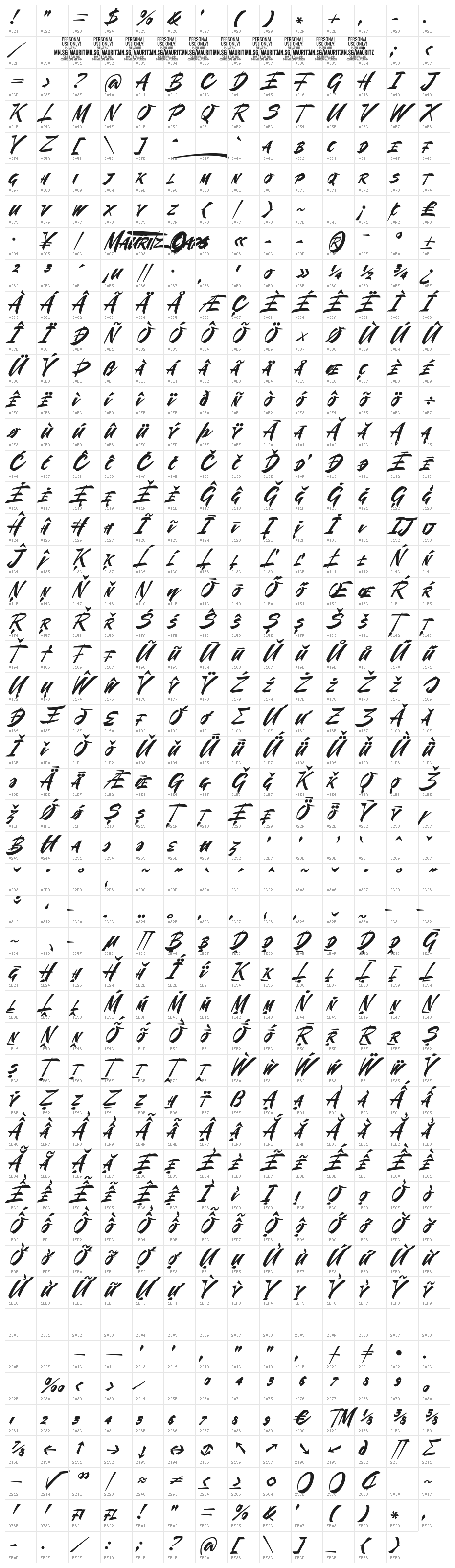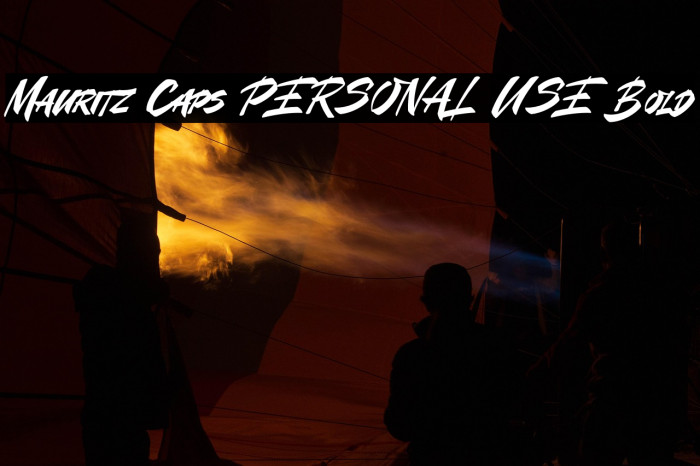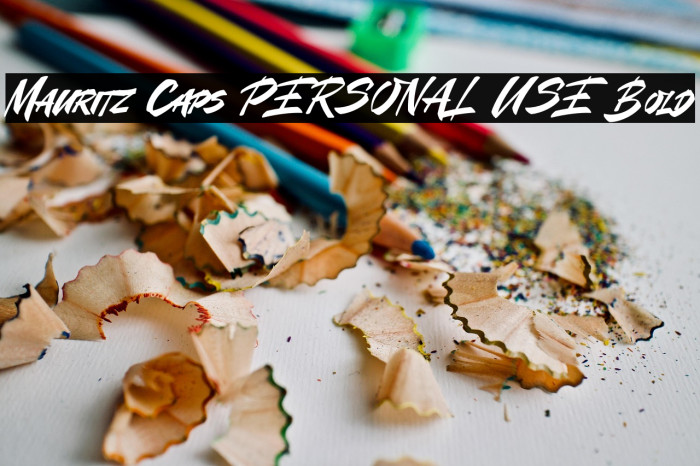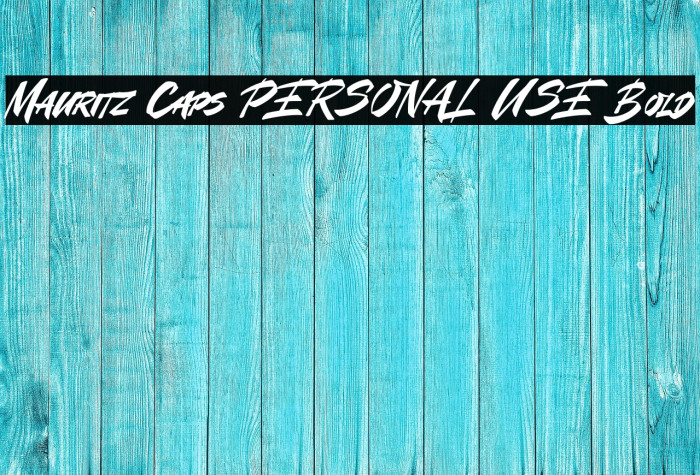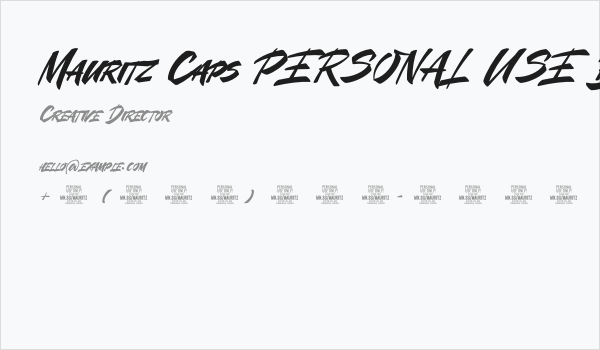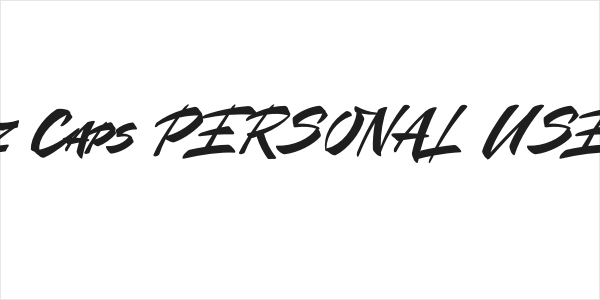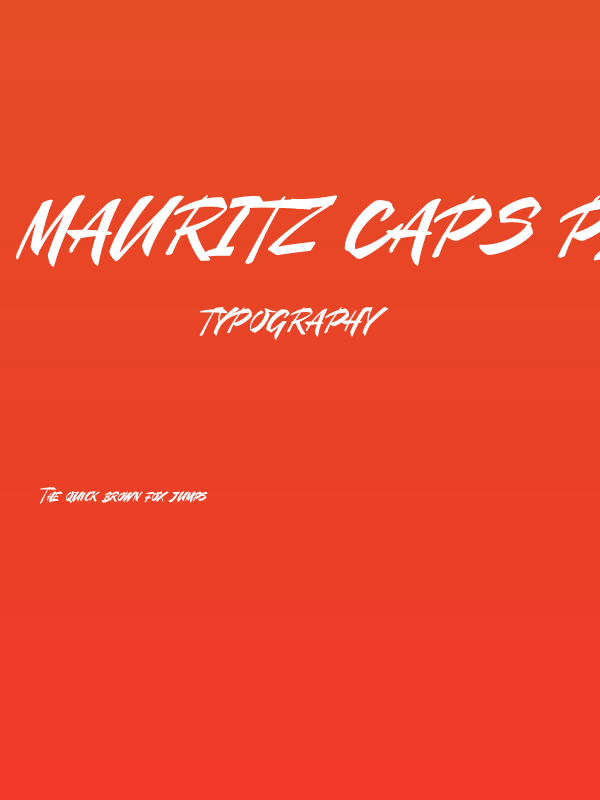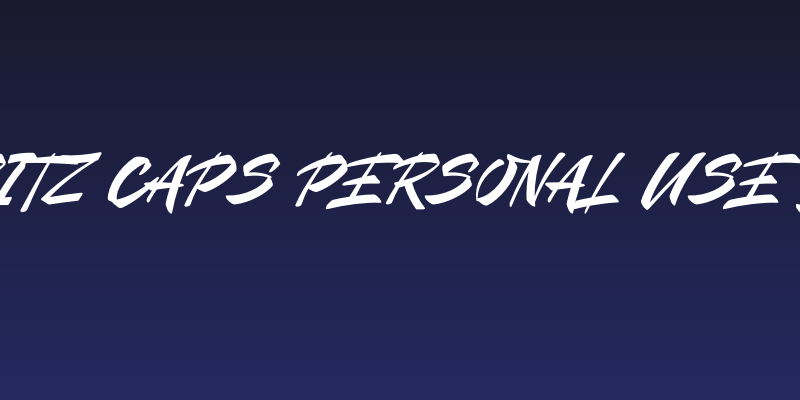
Mauritz Caps PERSONAL USE Bold Font
Mauritz Caps PERSONAL USE Bold Description
This bold and expressive font features a dynamic script style with a strong presence. The uppercase letters are characterized by thick, sweeping strokes that convey a sense of movement and energy. The lowercase letters maintain the same boldness, creating a cohesive look throughout the alphabet. The numbers and special characters are equally bold, ensuring consistency across all elements. The font's design is reminiscent of graffiti or street art, with a modern and edgy flair that makes it stand out. Its bold nature makes it ideal for attention-grabbing headlines or impactful designs.